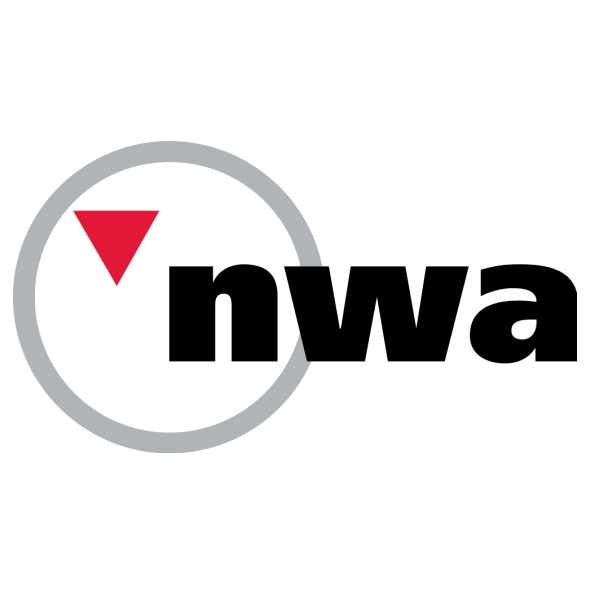
NWA Font
AirlineNorthwest Airlines Corp. was a major American airline founded in 1926 and absorbed into Delta Air Lines, Inc. by a merger in 2010.
Adrian Frutiger most likely created the font used for the NWA logo, Frutiger UltraBlack, in 1968 after being hired by Charles de Gaulle Airport to create a signage system. You can view more details about the font here.